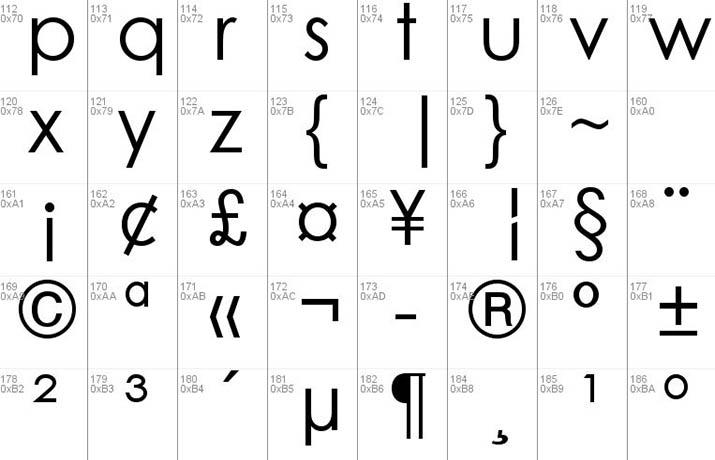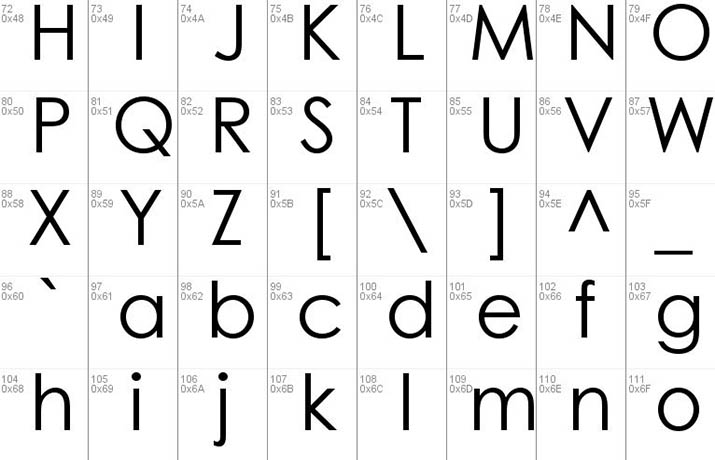
WeezerFont Font is a basic sans serif typeface that is based on geometric shapes. It is ideal for use in both titles and body content.
Its features are based on uncomplicated shapes like circles, triangles, and rectangles. It is an excellent default font for presentations due to its excellent readability, elegance, and lively personality.
Well-designed and professional, it works especially well when used for body text, making your paragraphs easier to read. Thus, It’s clear and easy to read, no matter how you use it.
Style: | Grotesque, Sans Serif, Display |
- This modern-looking font is an excellent choice for paragraphs, book covers, long text paragraphs, t-shirt printing, special quotes, book covers, paragraphs, headlines, business cards, flyers, social media posters, product packaging, special quotes, and more. is Likewise